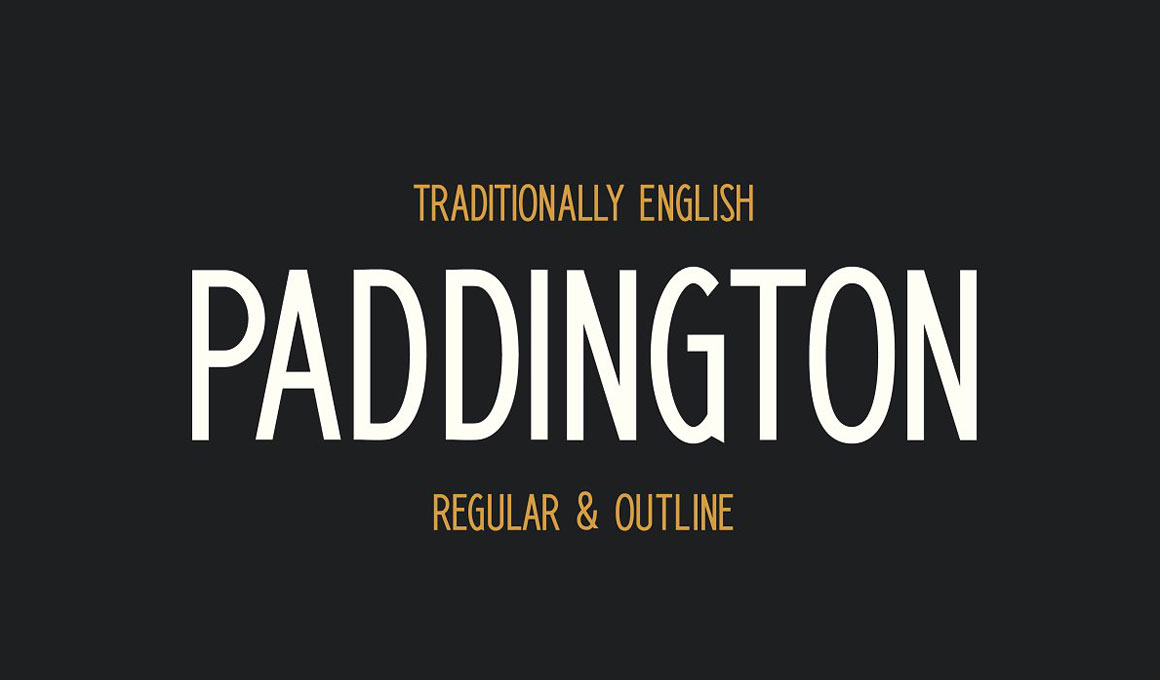
London is filled with some amazing design history. From old signs in the city to long forgotten lettering on buildings, this font celebrates London! Inspired by old road and tube signs, I have lovingly crafted a modern version of London’s long lost typography goodies!
Paddington is sturdy, bold, and uncompromising with some beautiful quirks hidden throughout. This font is sure to turn some heads.
Paddington includes two all-caps fonts:
• Paddington Regular – Bold and quirky
• Paddington Outline – Edgy and fun
Paddington works great in any branding, logos, magazines, films. The different weights give you full range to explore a whole host of applications.